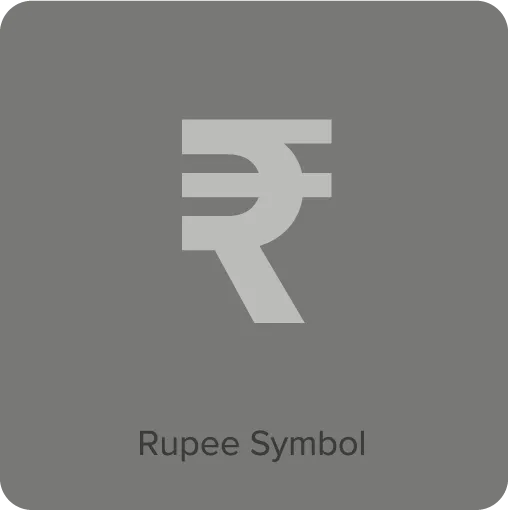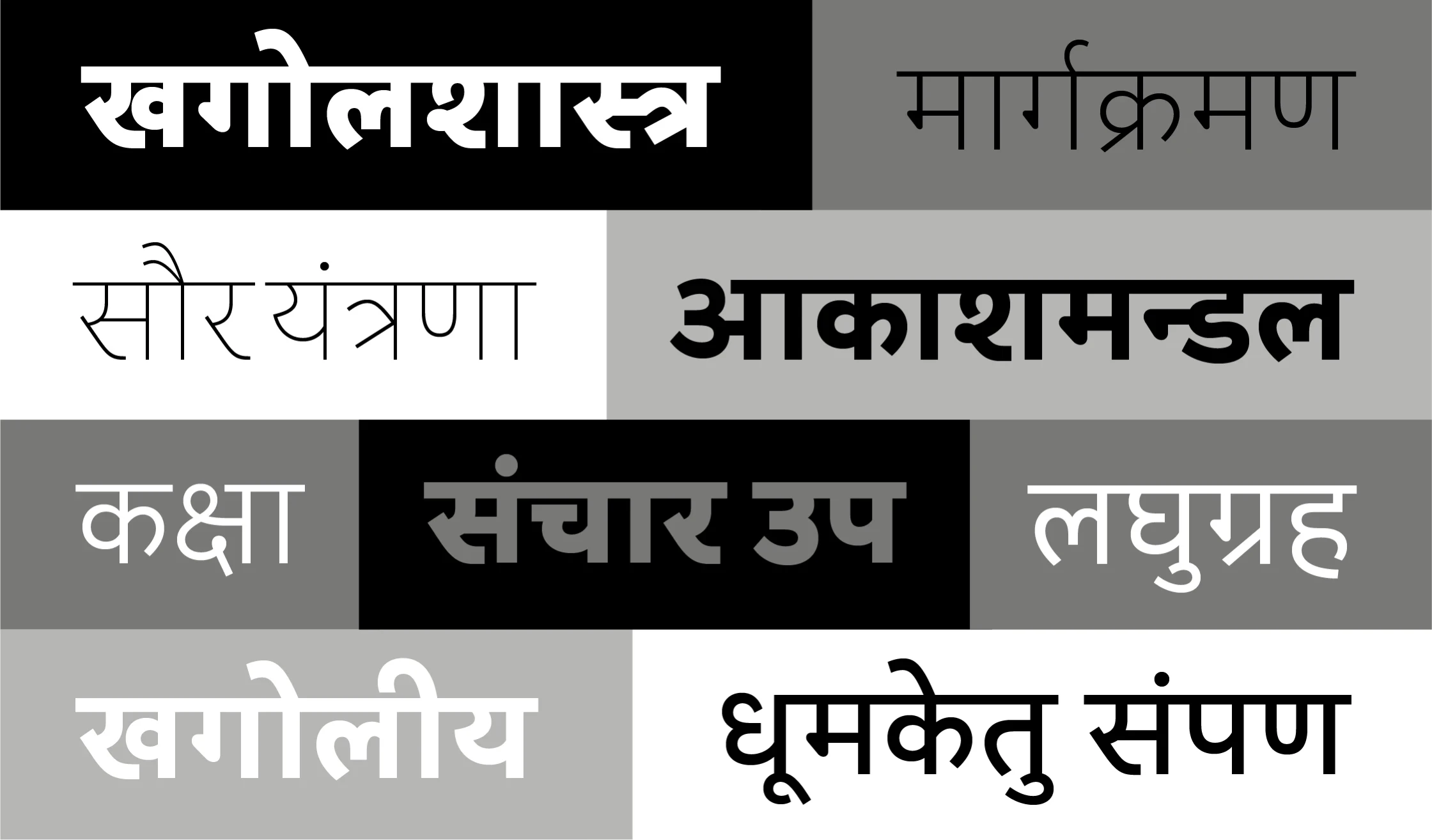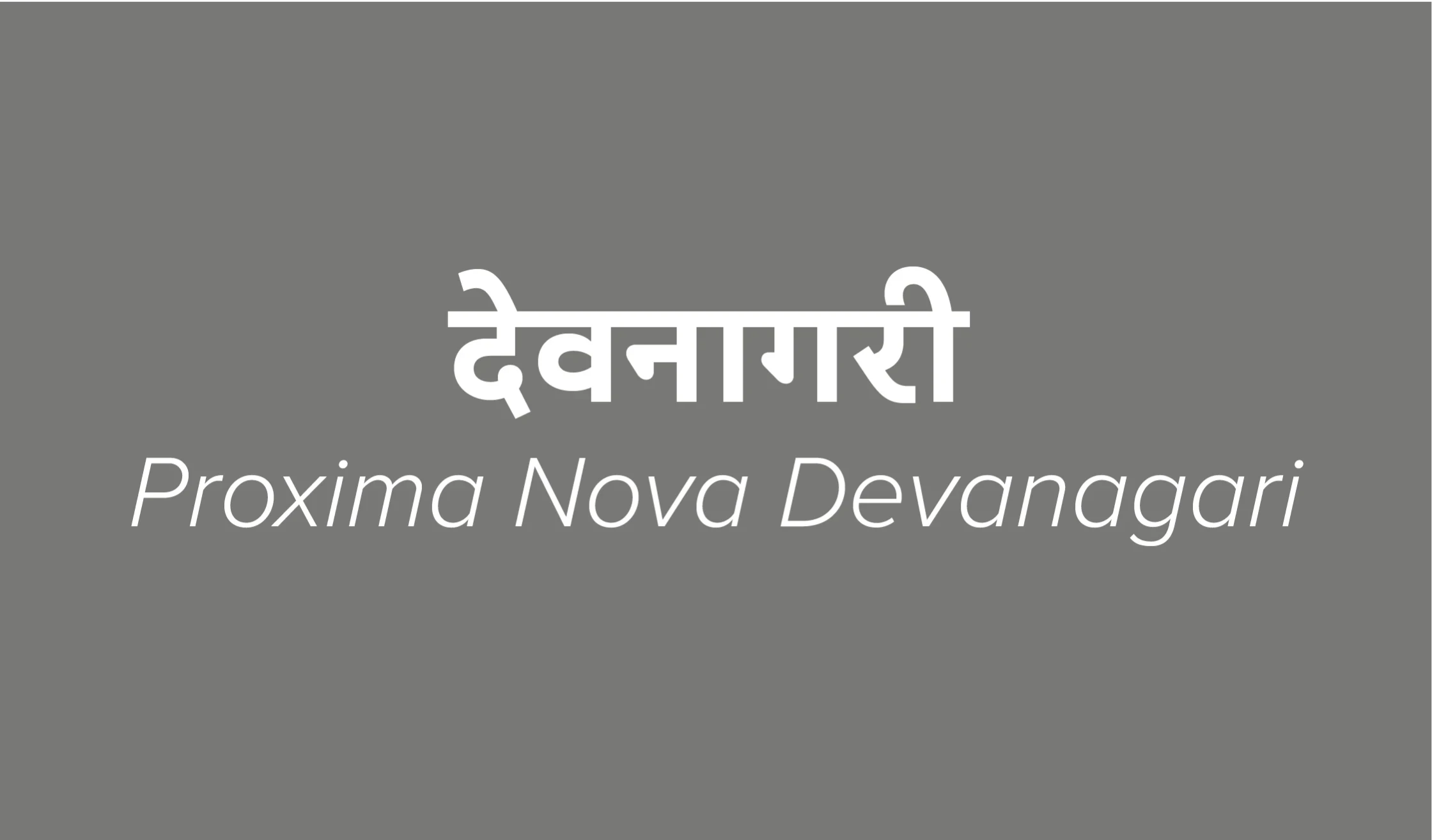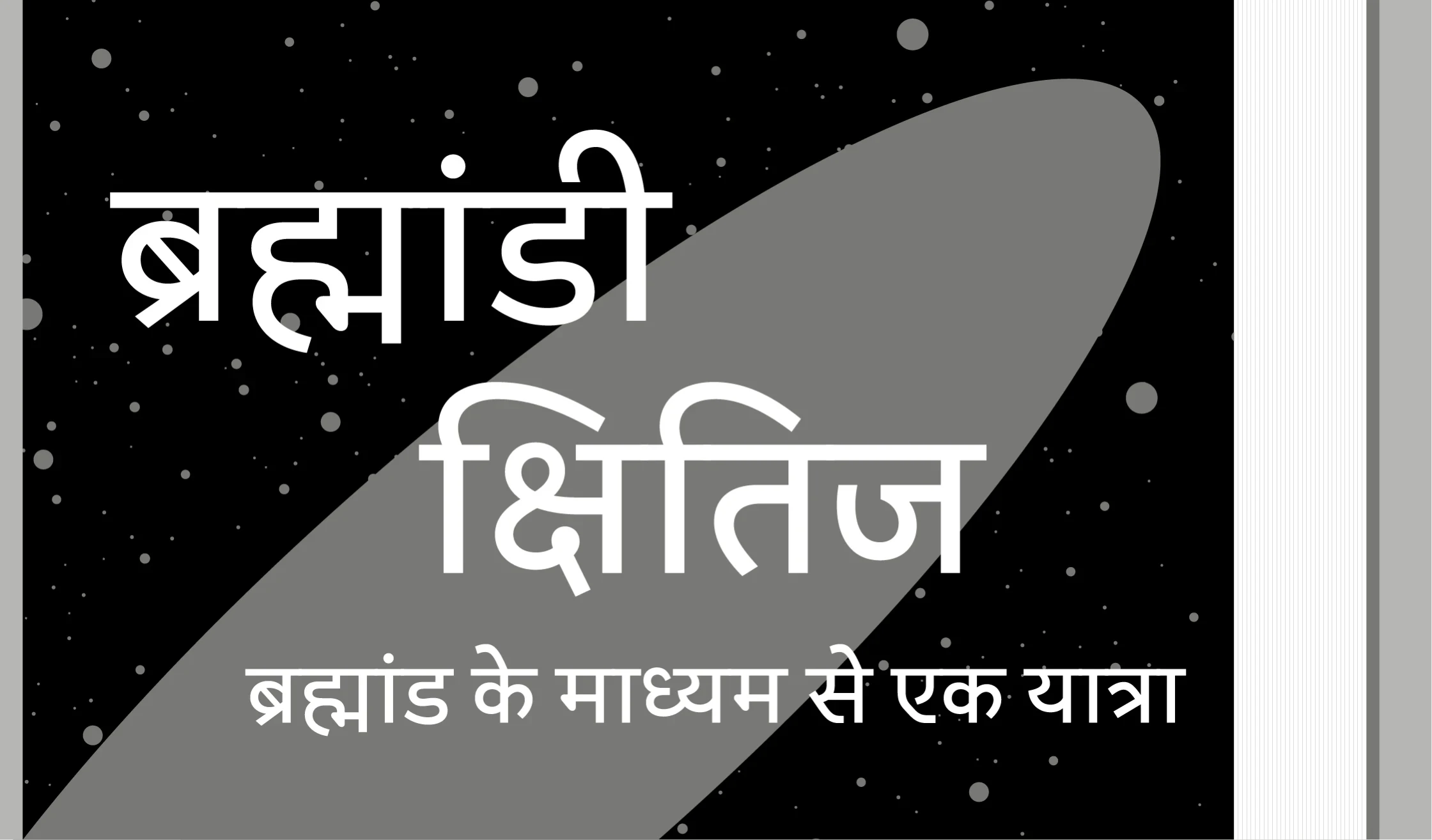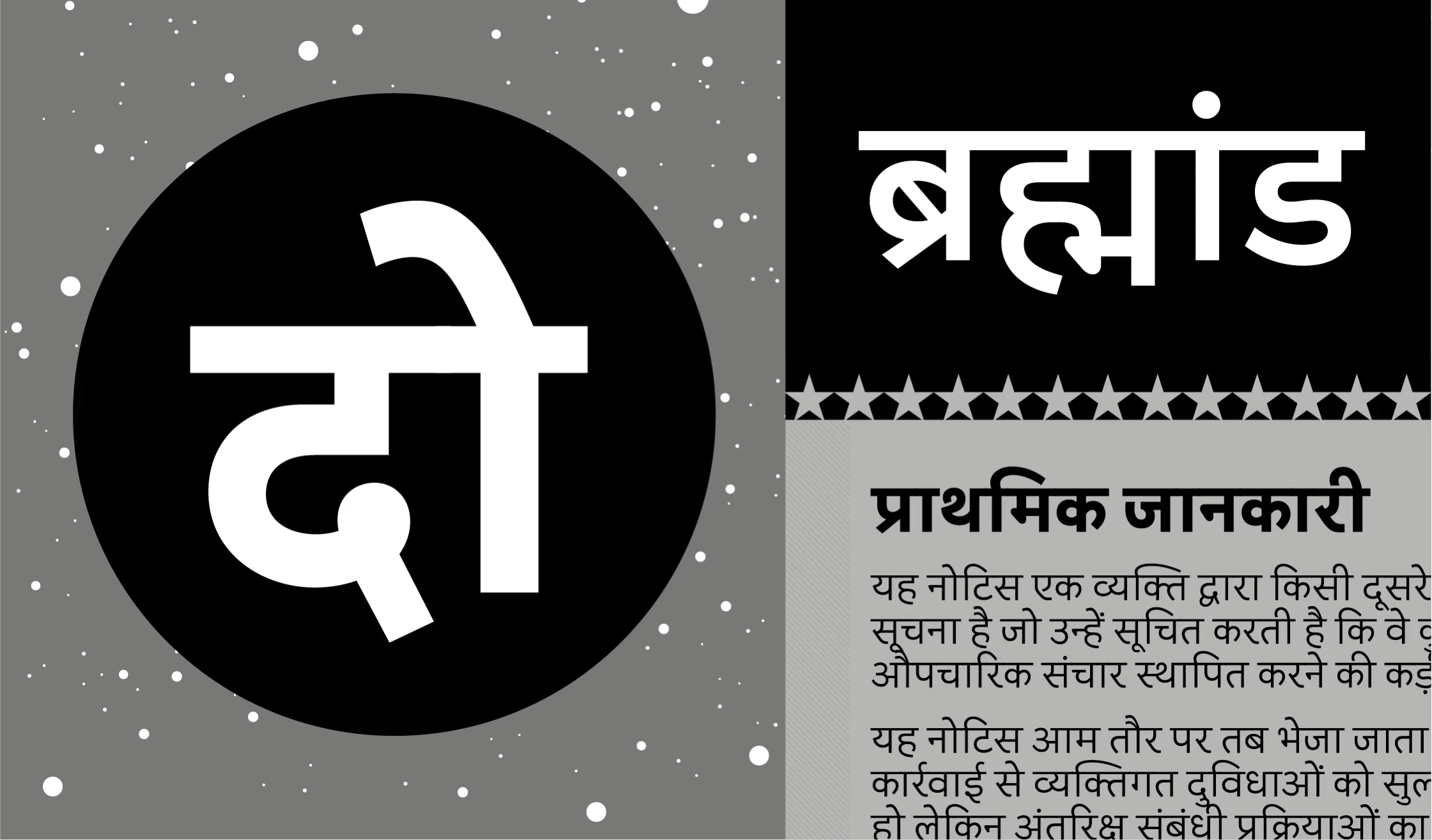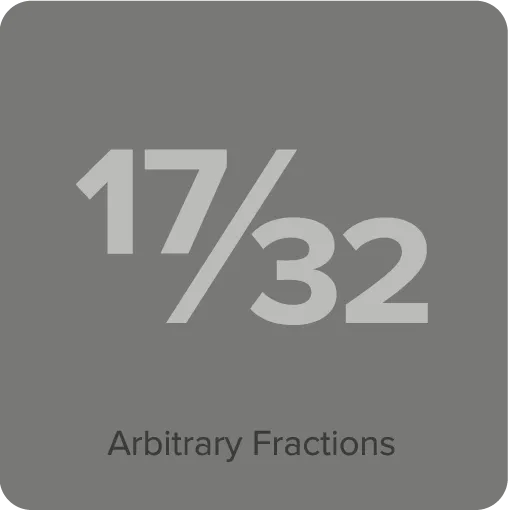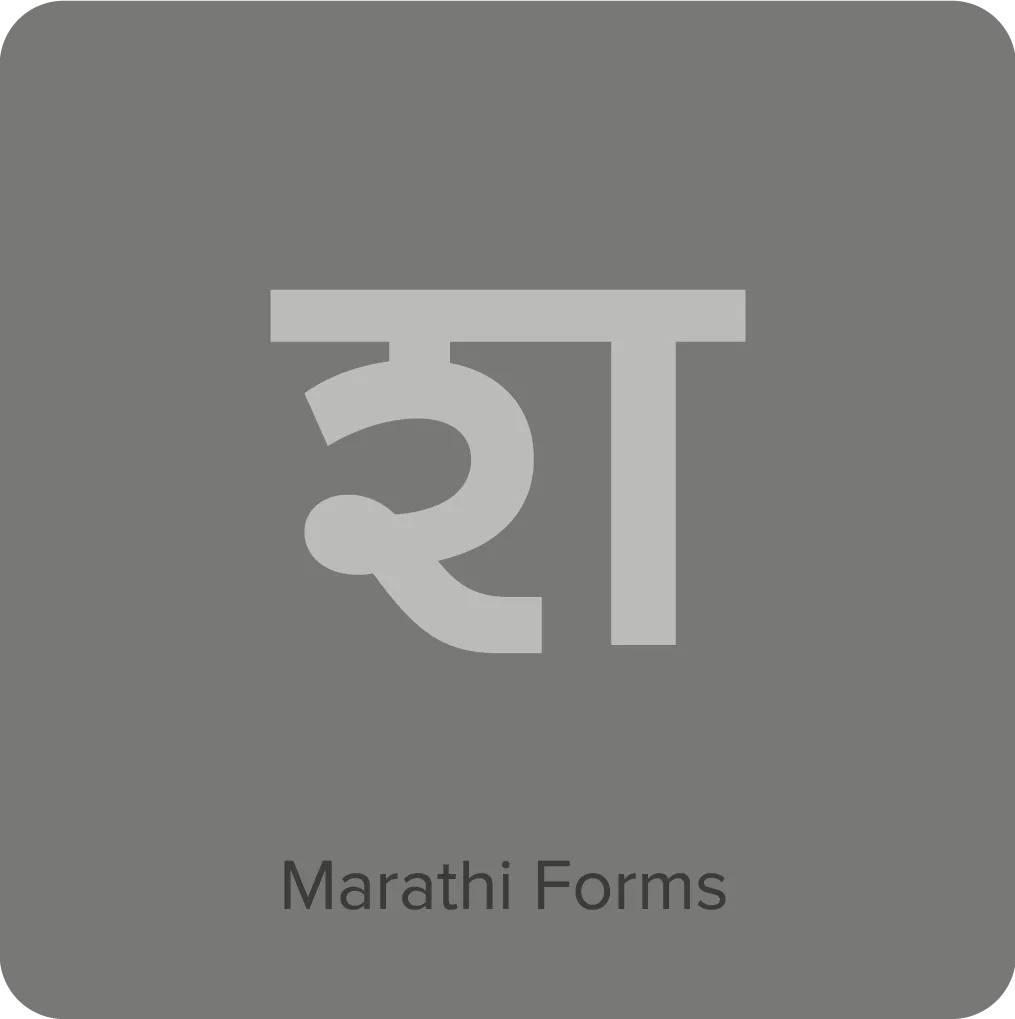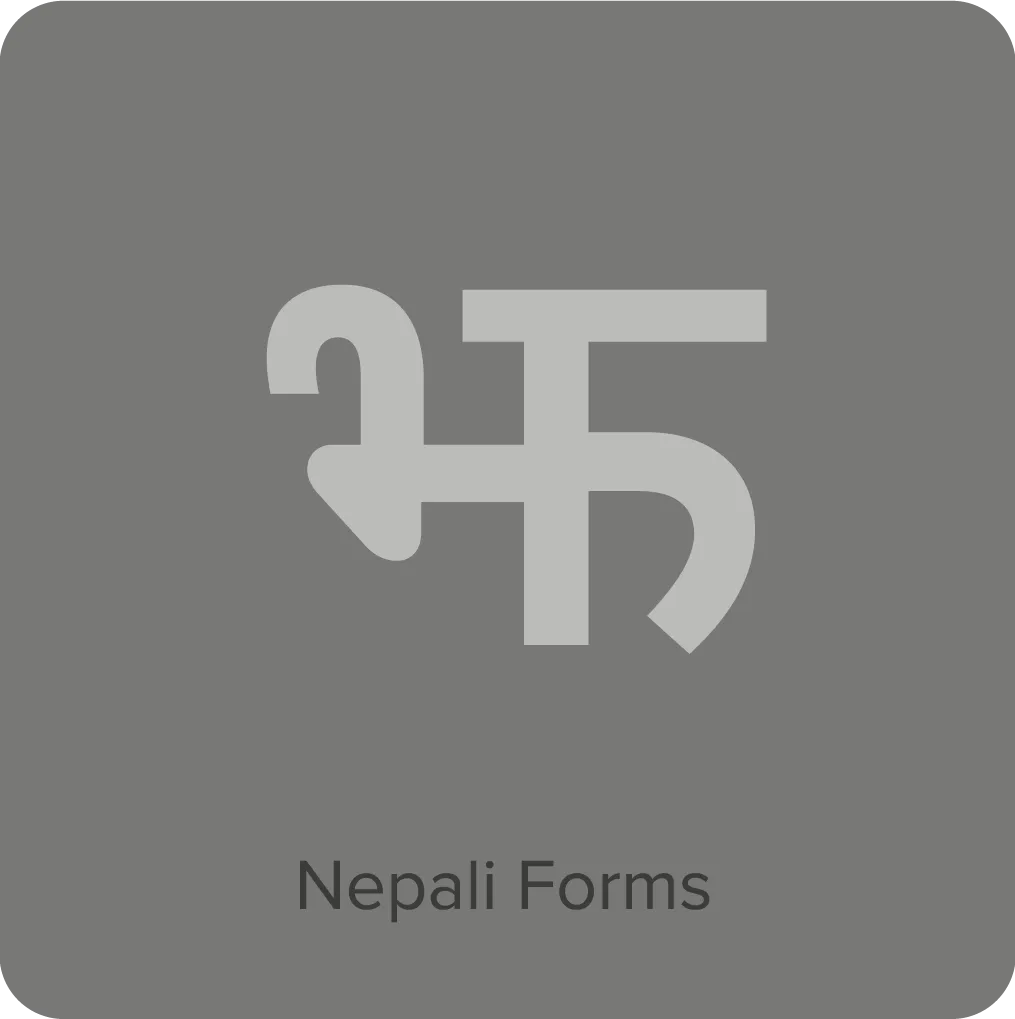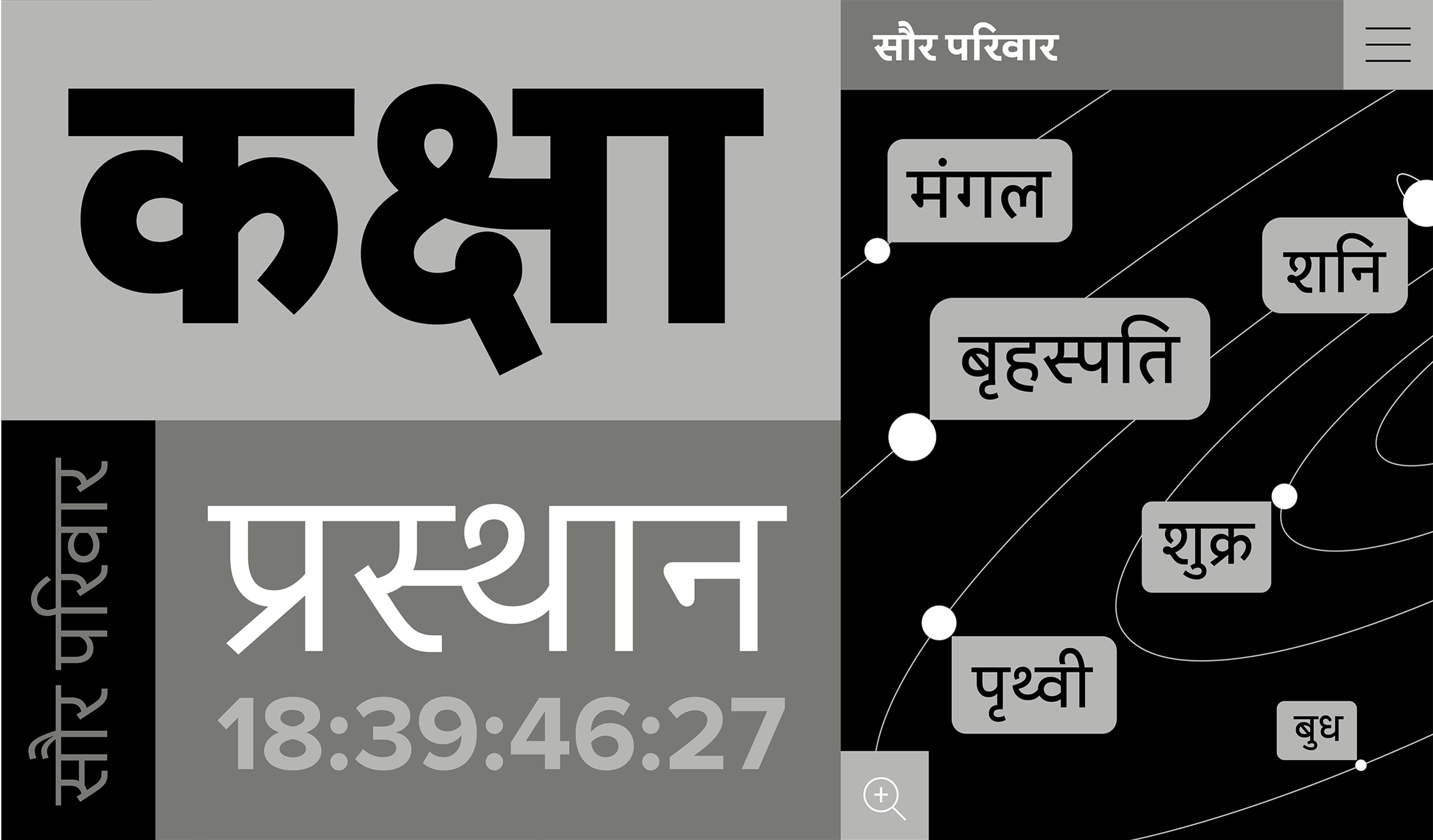
Proxima Nova Devanagari (2024) was designed by Vaibhav Singh and Alessia Mazzarella of Typeland for Mark Simonson’s ever-popular Proxima Nova. The script was created with subtleties of flavor, making it distinctly its own without Latinization — as a partner for use with Proxima Nova. Featuring an extended Latin and Devanagari character set with Marathi and Nepali stylistic sets in eight weights — from Thin to Black — this growing family of typefaces is set to become even more popular worldwide.
Proxima Nova Devanagari Features
- 8 weights: Thin, Light, Regular, Medium, Semibold, Bold, Extrabold, and Black.
- Matching small caps for all weights.*
- Case-sensitive forms for all-caps settings.*
- Lining and old style figures (proportional and tabular).*
- Discretionary ligatures.
- Full “f” ligature set (ff, fi, fl, ffi, ffl, etc.).*
- Alternate characters (a, l, y, G, slashed zero, and seriffed 1).*
- Marathi and Nepali forms.
- Devanagari aligned Latin punctuation, symbols including the rupee (₹), and figures.
- Automatic arbitrary fractions.*
- Automatic ordinals.*
- Extended language support for Devanagari, most Latin-based Western and Central European languages. Also includes the capital German sharp S.
- Extended currency support.